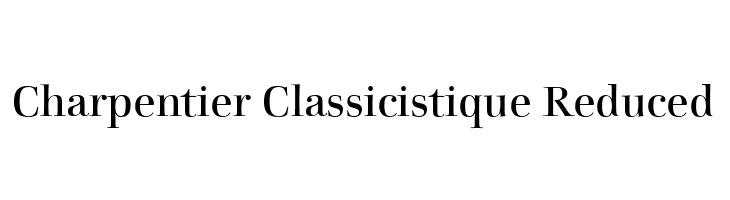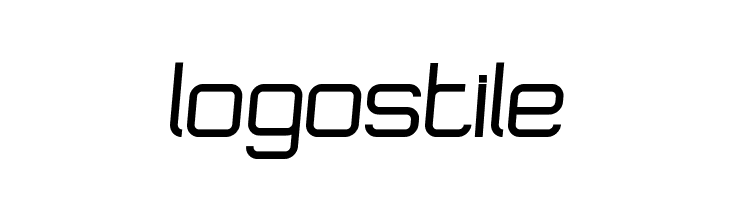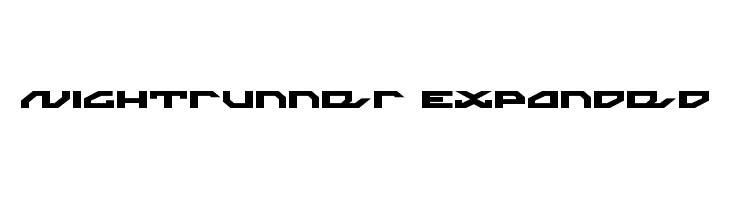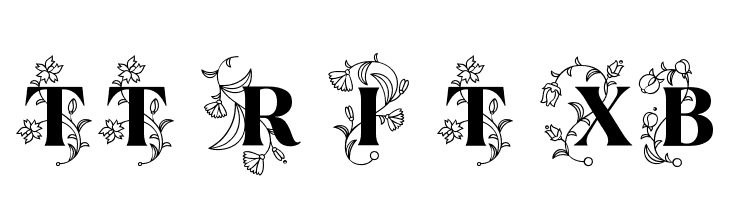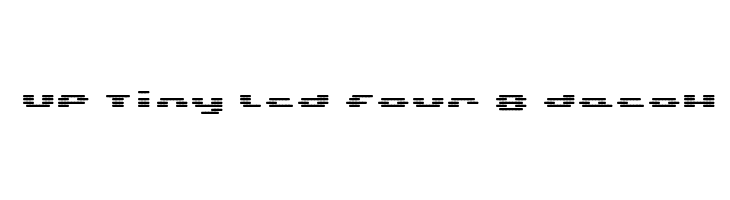
A classic serif font with elegant strokes and balanced proportions.
A bold, dynamic font with rounded, slightly slanted characters.
A bold, geometric font with a futuristic and modern design.
A playful, textured handwritten font with a dynamic and informal style.
A bold, playful font with a 3D effect and cartoonish style.
A bold, geometric outline font with a futuristic and edgy style.
A bold, italic, and futuristic font with a geometric design.
A bold, playful font with a cartoonish, graffiti-like style.
Ornate, decorative initials with intricate frames and a vintage style.